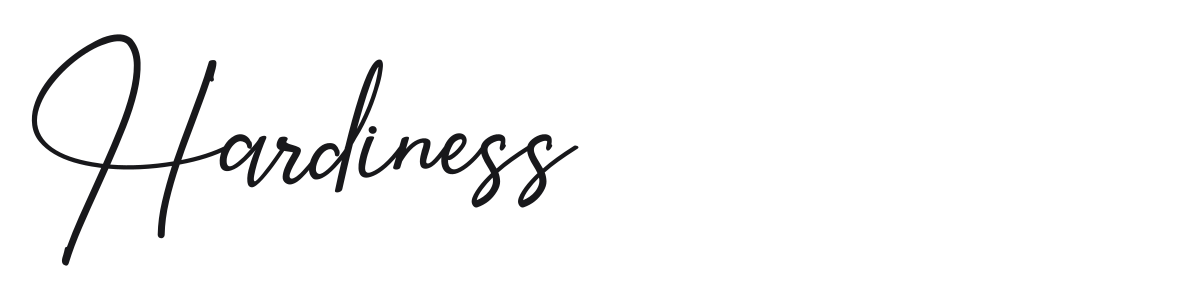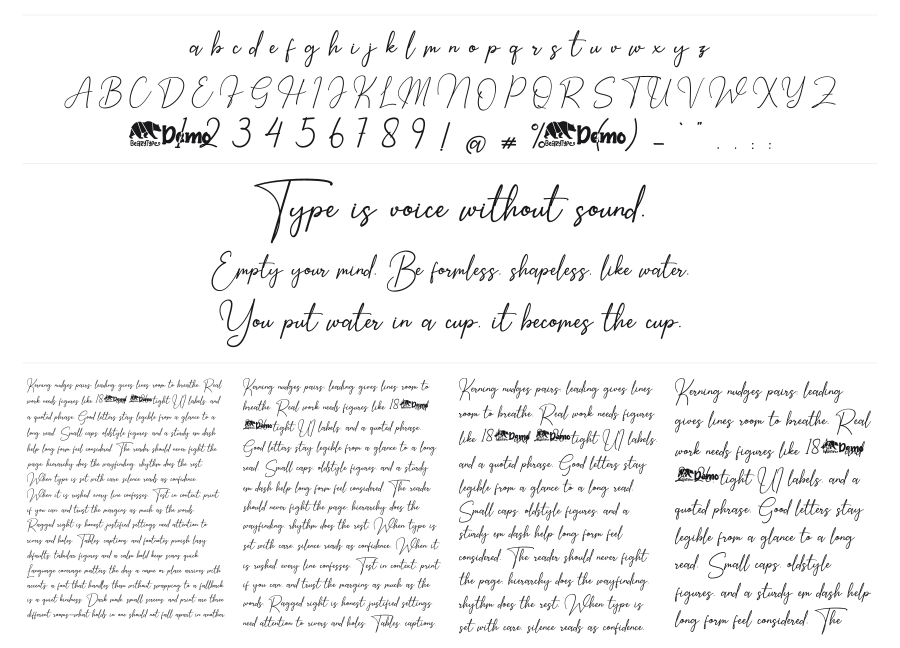
Hardiness
Hardiness is a flowing casual script with a relaxed, handwritten energy and smooth connected strokes. The near-monoweight construction keeps it light and airy, while tall ascenders and sweeping descenders give it rhythm and presence at headline sizes. It sits naturally in branding and packaging work where a personal, approachable touch is the point.